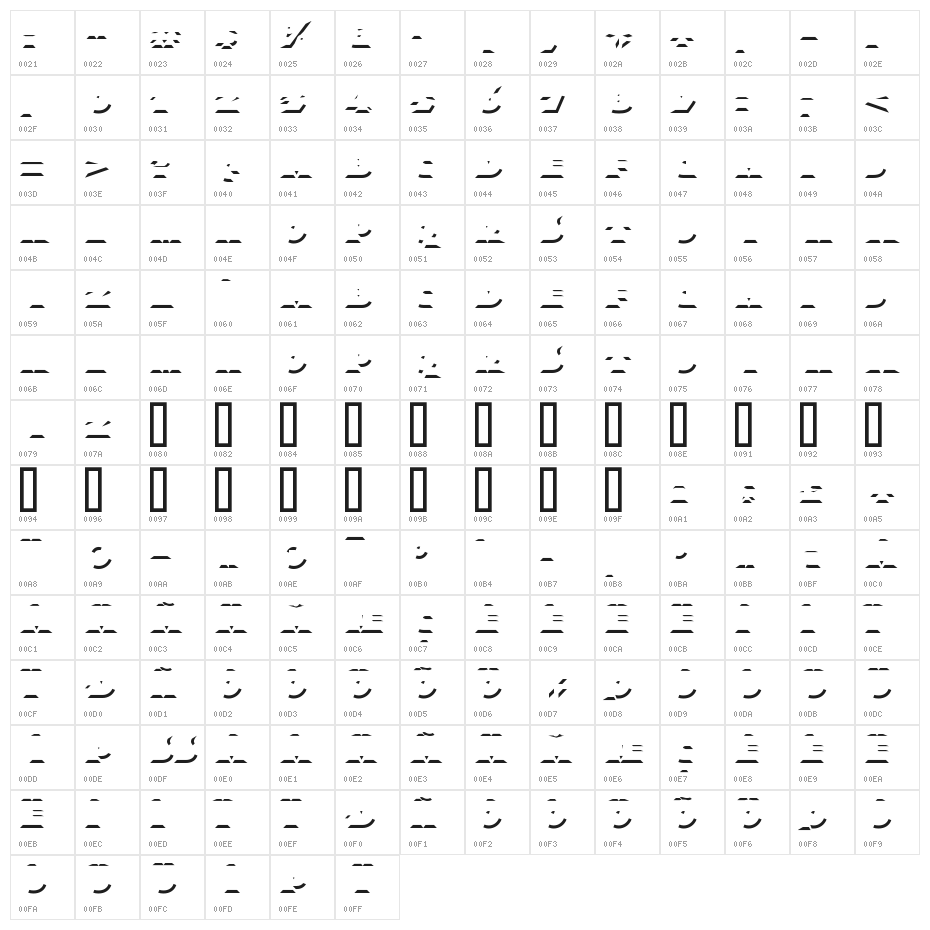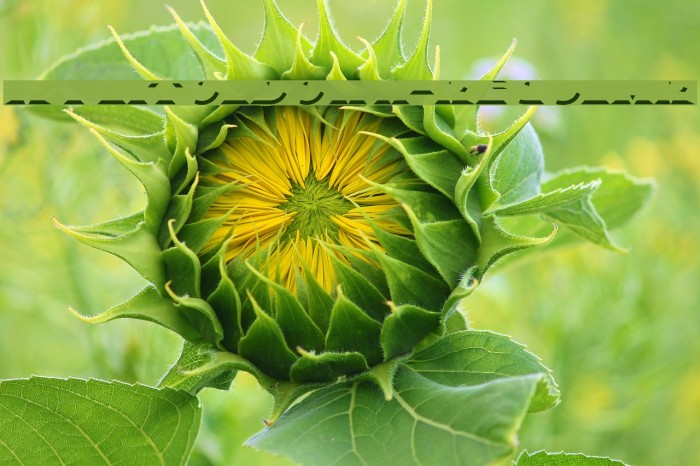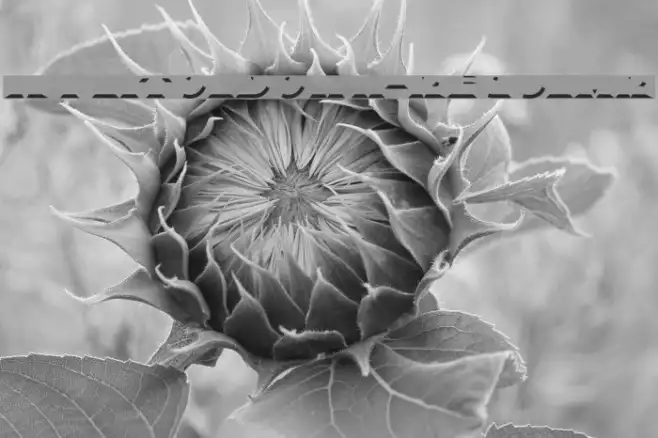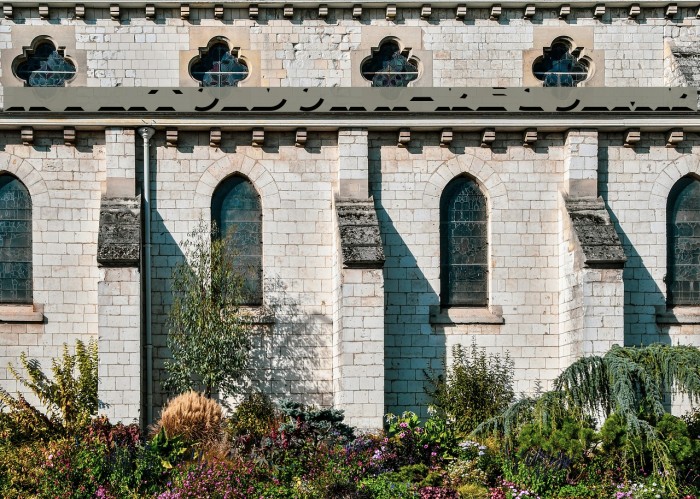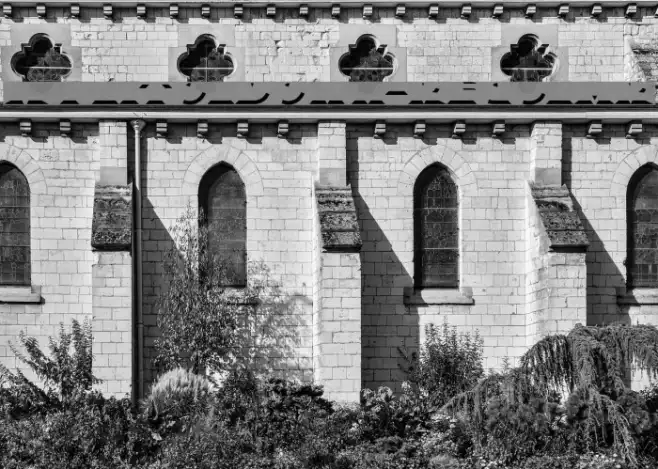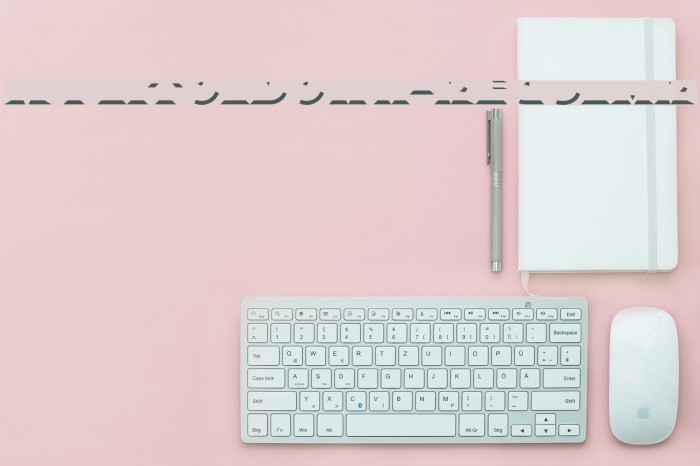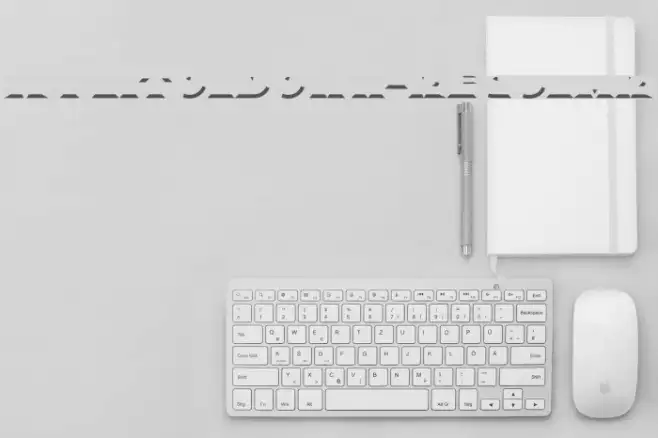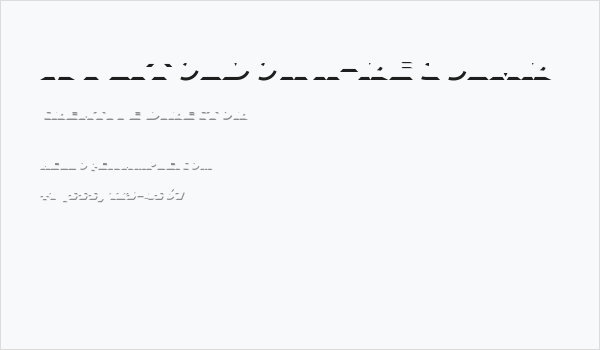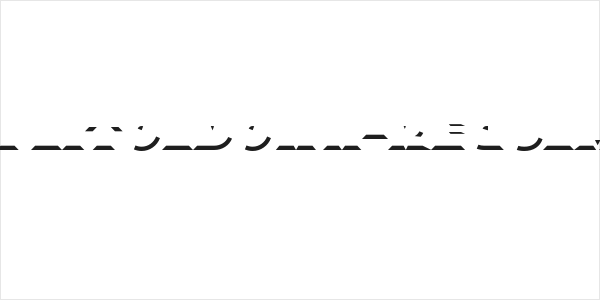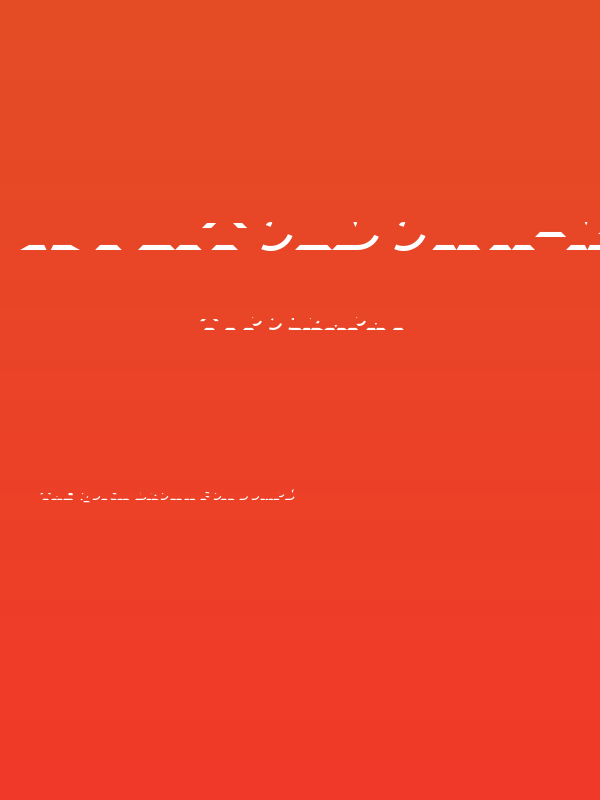
XylitolDown-Regular Font
This font features a unique, futuristic design with a distinct geometric style. The characters are composed of sharp angles and clean lines, giving it a modern and edgy appearance. The uppercase and lowercase letters maintain a consistent aesthetic, with a slightly condensed form that enhances its sleek look. The numbers and special characters follow the same design principles, ensuring uniformity across all glyphs. This font is ideal for projects that require a contemporary and innovative touch, making it suitable for tech-related themes or modern branding.
| Proposed Projects | Ideal for tech branding, modern advertisements, digital interfaces, and innovative product packaging. |